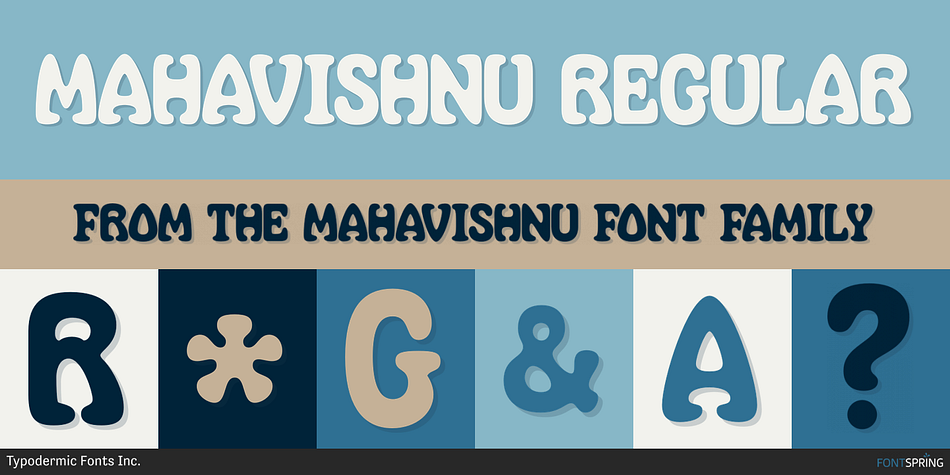
MAHAVISHNU REGULAR
Mahavishnu is a retro font published by Typodermic Fonts Inc.
Step into the world of Mahavishnu—a typeface that takes inspiration from the psychedelic record covers of the legendary Mahavishnu Orchestra, and brings to life a unique, organic design that speaks volumes. Each letter has been meticulously crafted to have an intriguing interaction with the next, creating a flowing, organic feel that is sure to captivate your audience.
With its soft, delicate curves, Mahavishnu exudes an aura of calm contemplation. Its sleek and stylish design gives your message an original, captivating voice, that will set you apart from the rest. It breathes life into your words, and delivers your message with a sense of depth and character that is hard to come by.
The unusual curves of Mahavishnu make it perfect for those looking to create a design with a difference. It is a typeface that embodies the spirit of creativity and imagination, giving your message an organic feel that is both fresh and exciting. Whether you’re designing a poster, a logo, or even a book cover, Mahavishnu will add a touch of originality to your work, and ensure that your message is delivered in style.
In short, Mahavishnu is a font that will elevate your design to new heights. Its distinctive curves and letter interaction make it the perfect choice for those who want to create an intriguing, original voice for their message. So why not give Mahavishnu a try and discover the creative possibilities it has to offer?